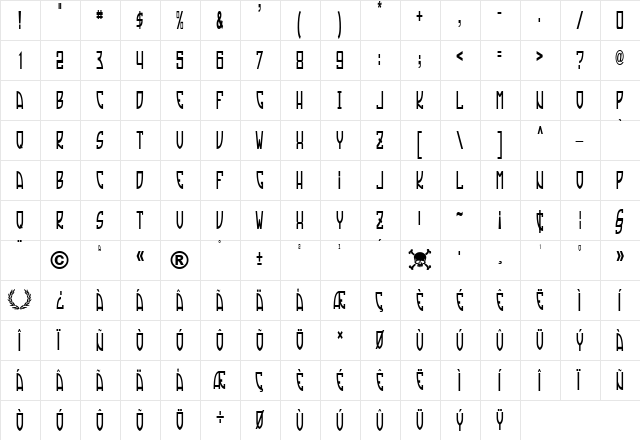
Tradizione Slim Regular
Design Context for Tradizione Slim Typeface
Tradizione Slim is a composed and adaptable typeface that performs quietly and consistently across a wide range of design contexts.